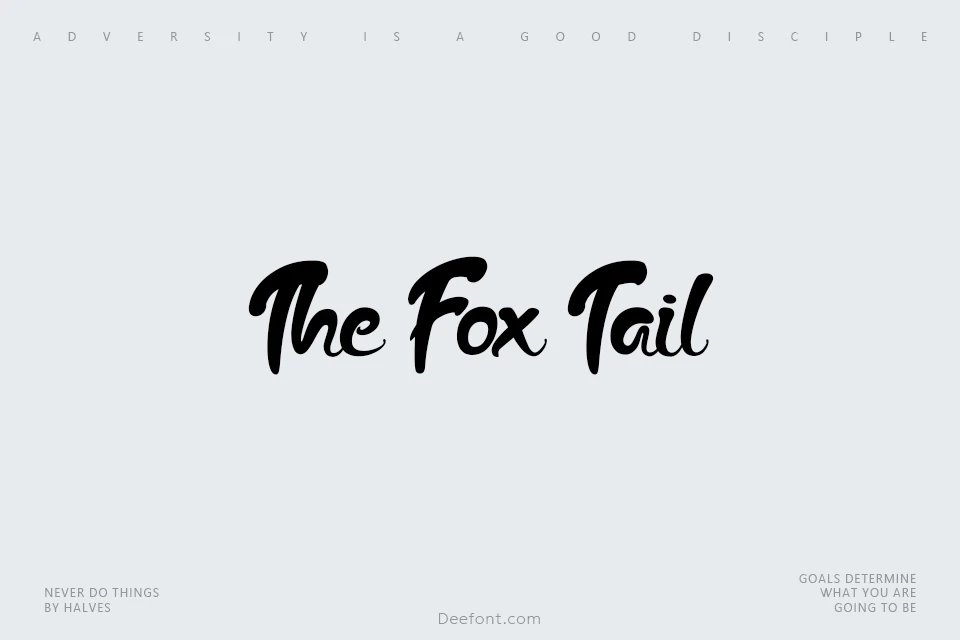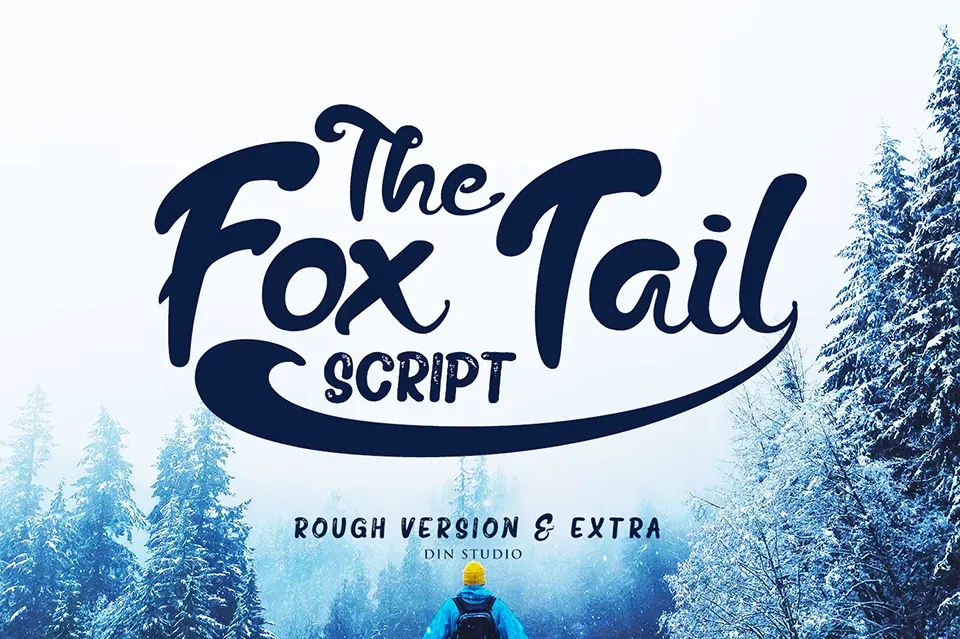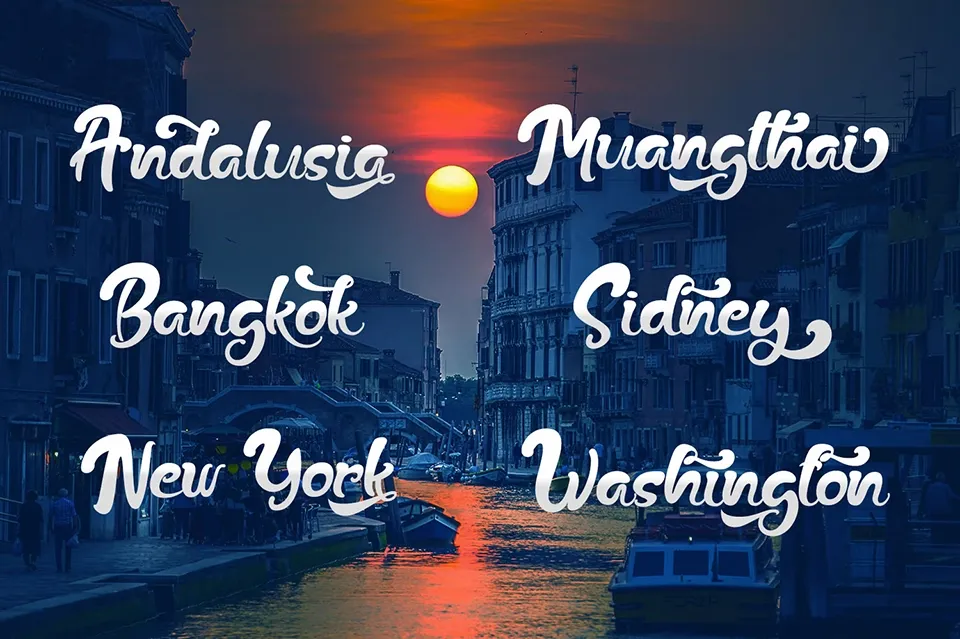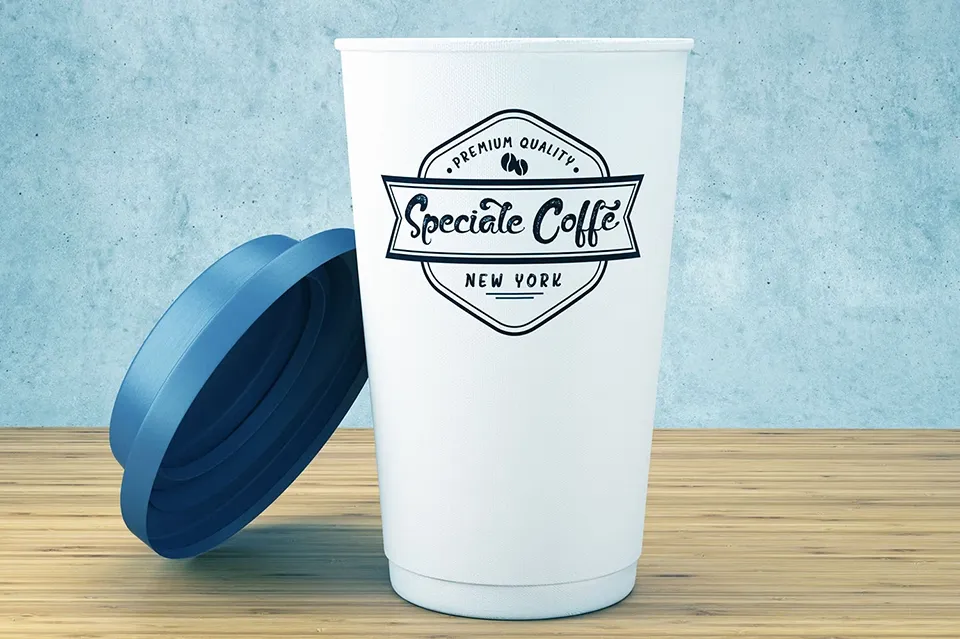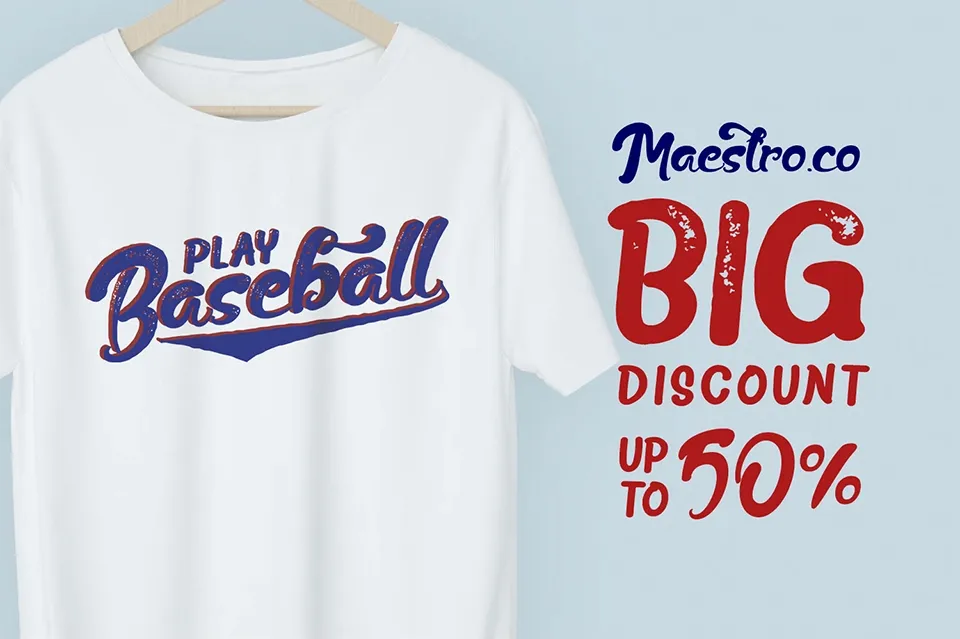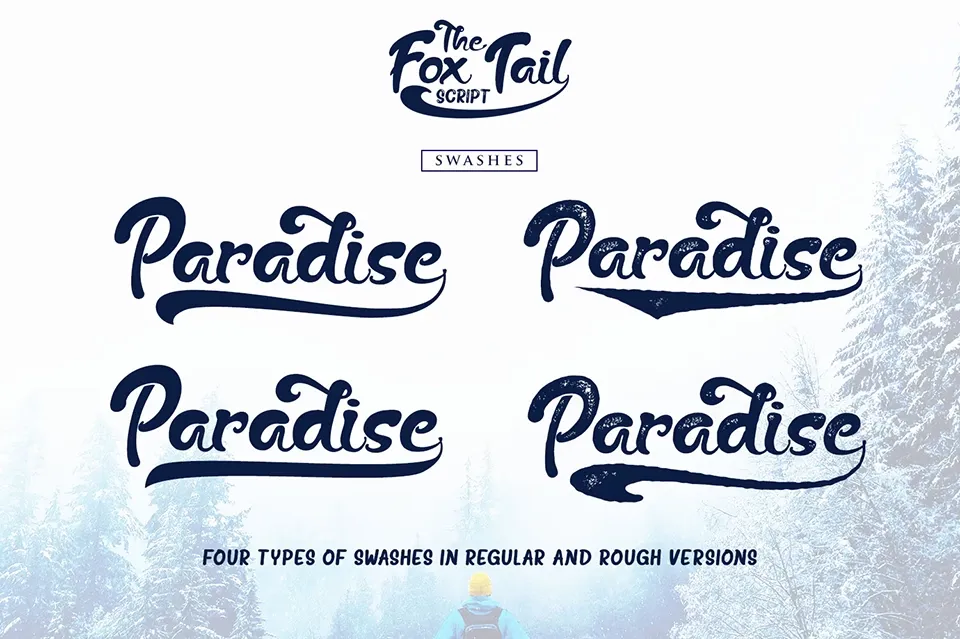
The Fox Tail Script Font
The Fox Tail Script Font is a bold and playful script typeface inspired by retro styles and the distinctive shape of a fox’s tail. Its sweeping, hand-drawn letterforms bring a sense of energy and personality to any design, making it perfect for logos, branding, product packaging, and creative headlines. The font family includes both regular and rough script versions, as well as a complementary sans and extra swashes for added flair. With a full set of uppercase and lowercase letters, punctuation, numerals, and multilingual support, The Fox Tail Script Font offers versatility and charm for a wide range of creative projects.